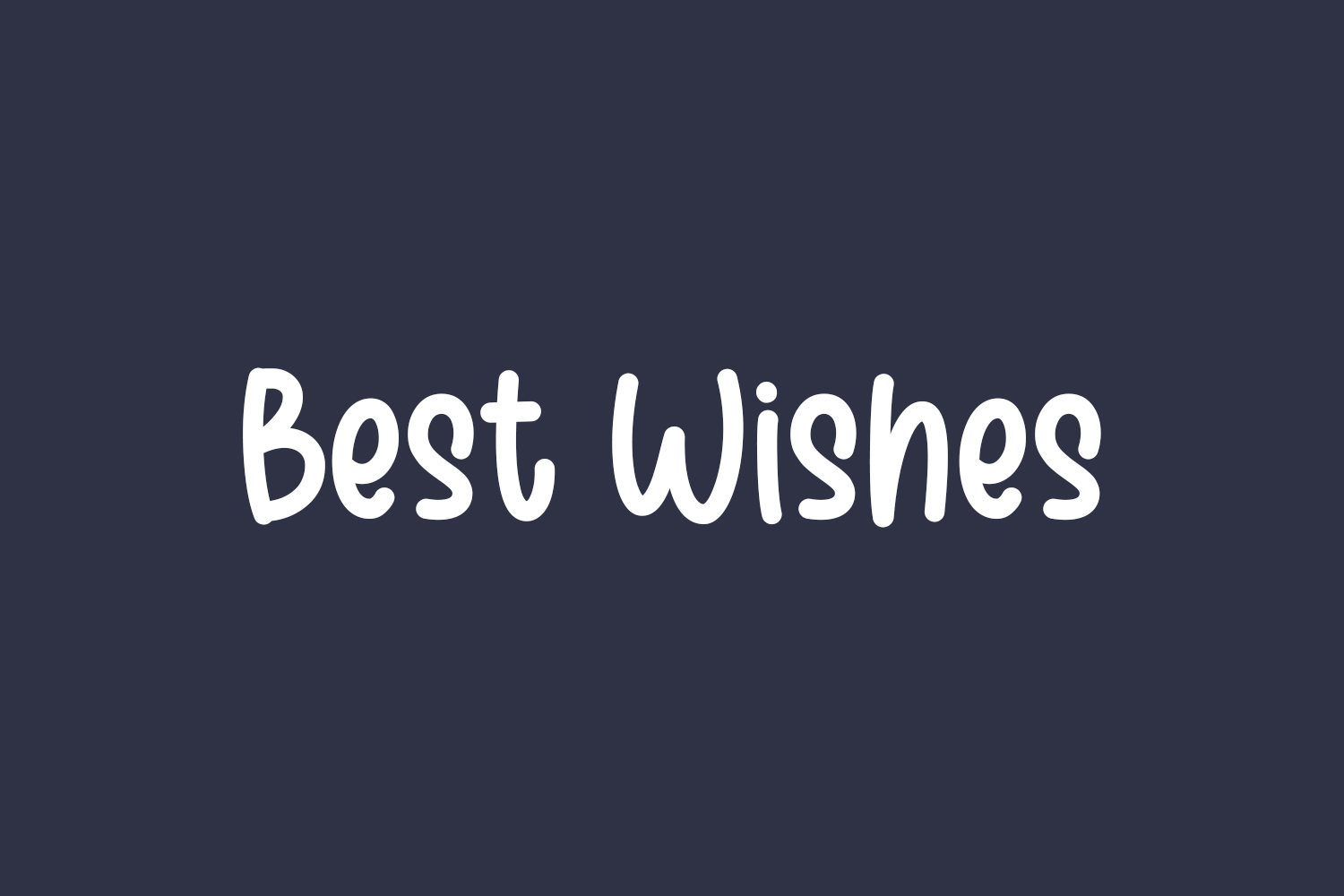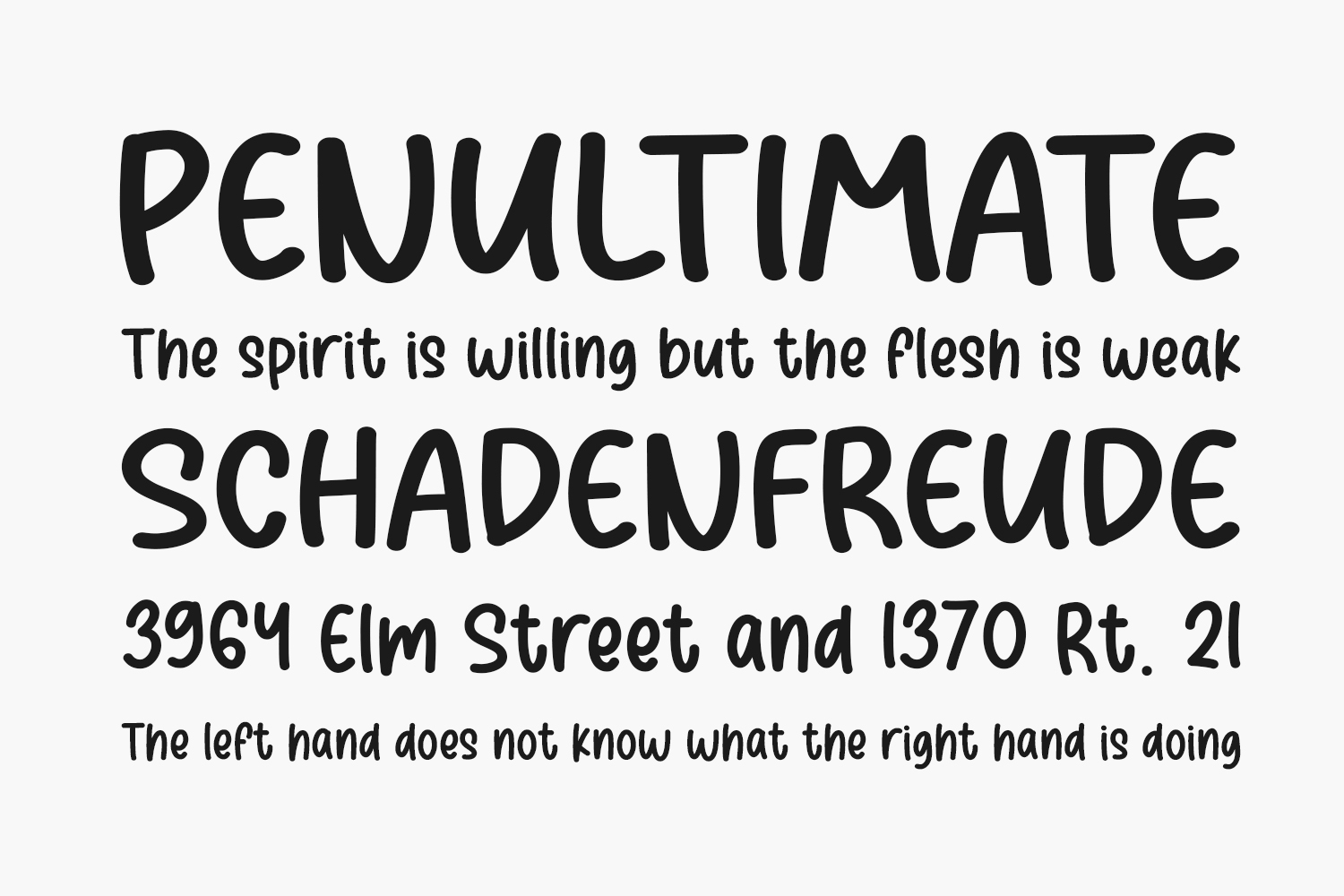
Best Wishes Free Font Family is a simple and playful display font. It can be used for various purposes such as logos, headings, t-shirts, letterhead, signage, labels, news, posters, badges and so much more.
Best Wishes Regular The quick brown fox jumps over the lazy dog
Best Wishes Inline The quick brown fox jumps over the lazy dog